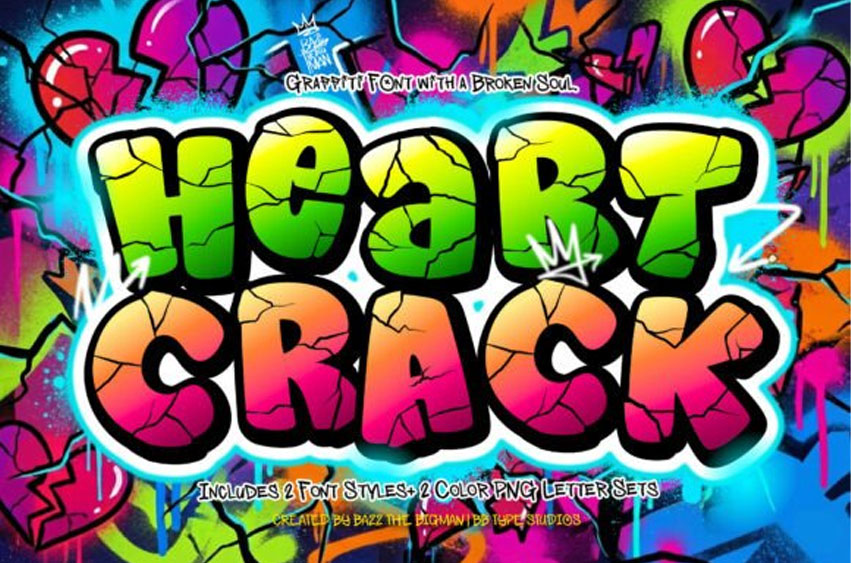
Heart Crack Font
Heart Crack Font is a fearless graffiti-inspired display font that echoes the playful spirit of urban street life. Balancing a comic-style energy with a bold, disruptive design, this font infuses every project with unforgettable personality and a punch of vibrant charisma. In the package, you’ll find Heart Crack nesting in two distinct styles: a straight-laced ‘Regular’ style standing tall amongst clean designs, and a daring ‘3D Border’ style ready to make headlines pop.
But that’s not all. Heart Crack comes bundled with two additional color PNG letter sets – the ultimate tool to kickstart your creativity on stickers, social media graphics, posters and more. Versatile and dynamic, its quirky crackled texture is ideally suited for a wide array of applications. Whether it’s tattooing the title of your next indie comic, peppering a streetwear design with edgy typography, creating zany cartoons, designing attention-grabbing posters and logos, kid-centric projects, packaging or putting a bold spin on brand representation, Heart Crack promises to leave a mark that’s as playful as it is audacious.